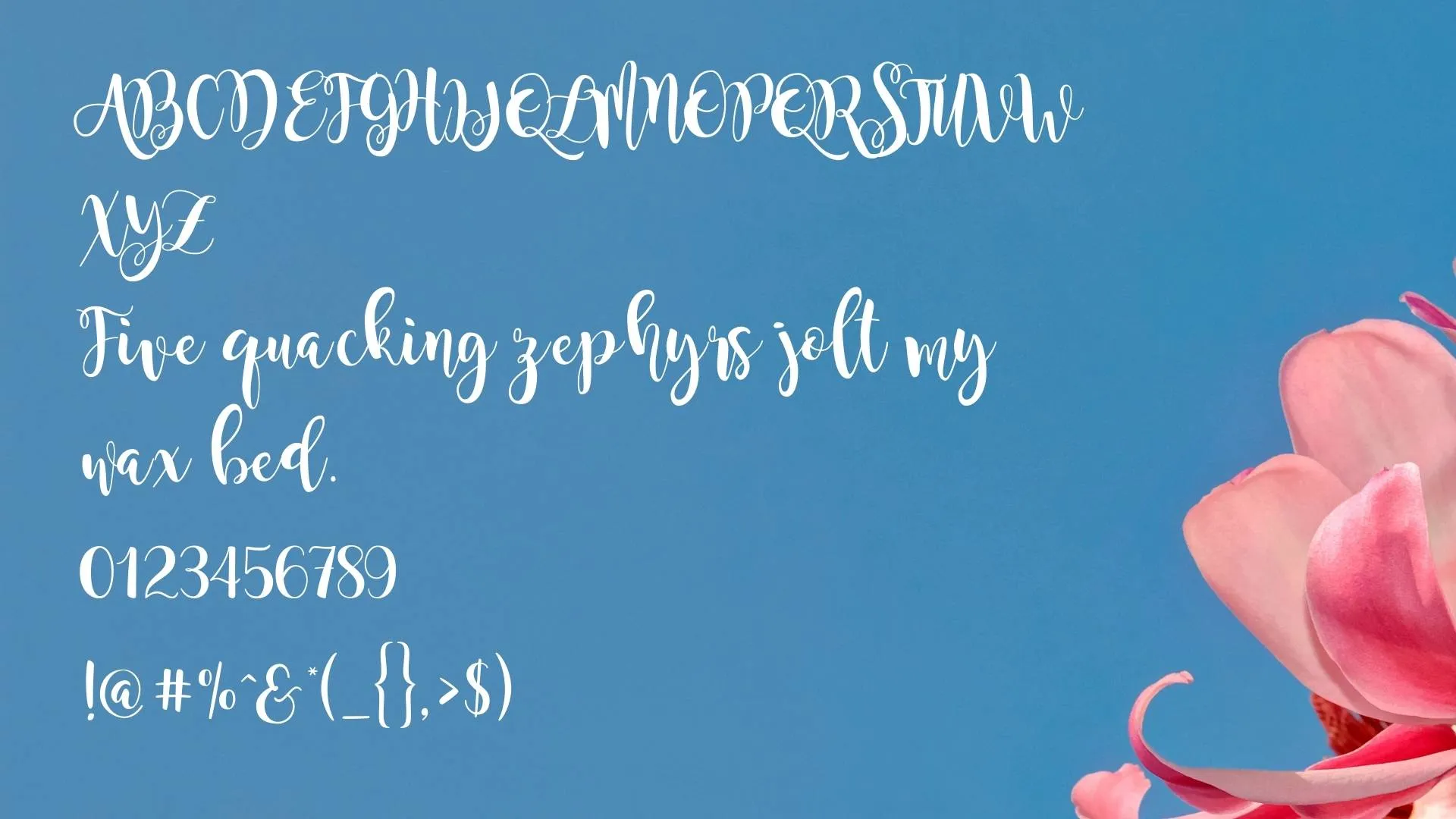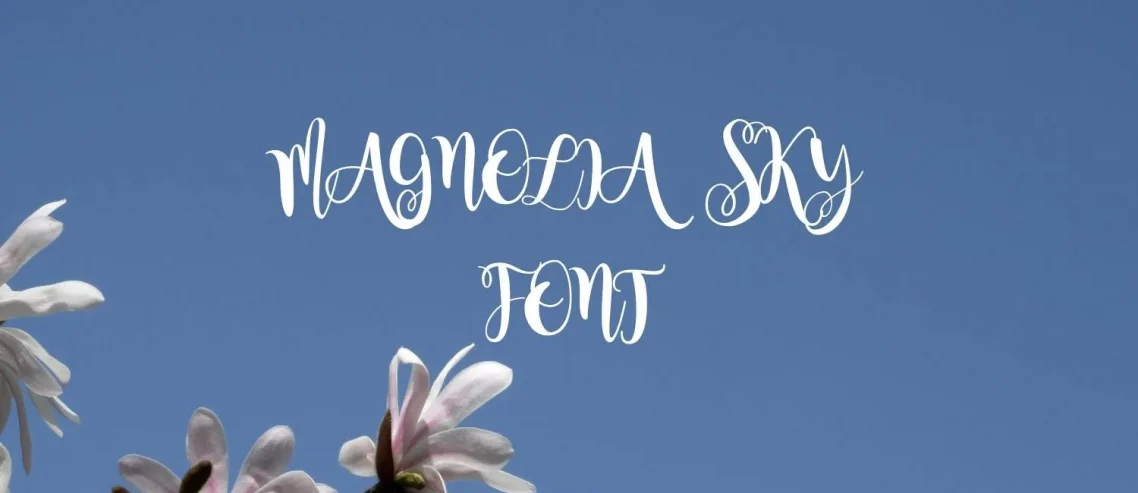
Magnolia Sky Font was designed by a very well-known designer named StereoType. StereoType published many fonts that are very famous in the fonts market and this font is one of them.
This is a very beautiful calligraphy font that is looking very amazing in any type of design or any other project. Magnolia font contains 98 glyphs and 199 characters. This font has also an OpenType layout and TrueType outline features.
View of Magnolia Sky Font
Magnolia Sky Font Info
| Name | Magnolia Font |
| Designer | Stereo Type |
| Style | calligraphy |